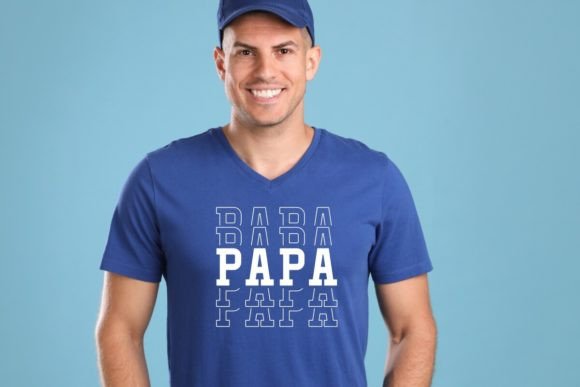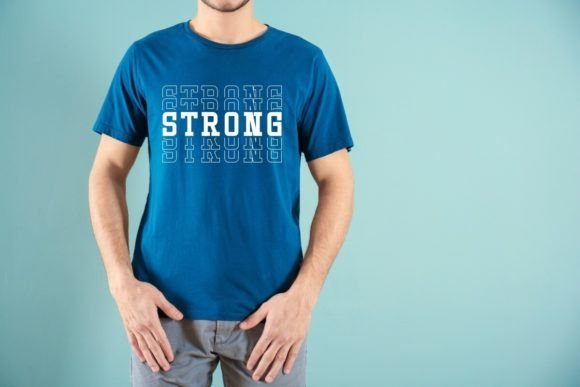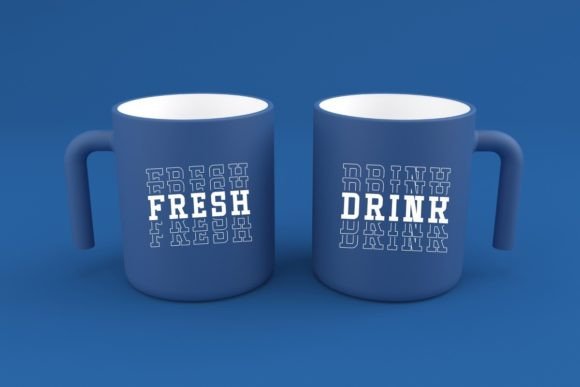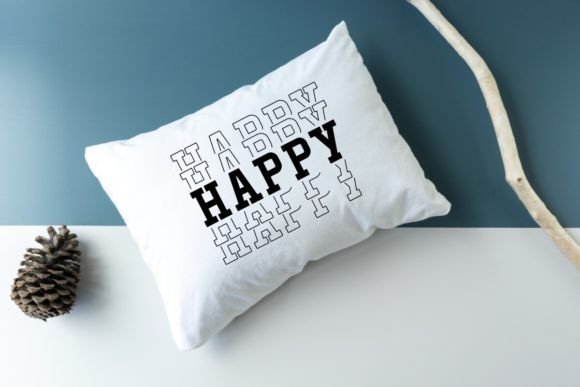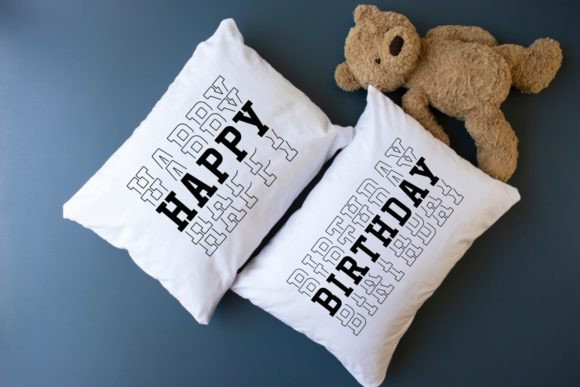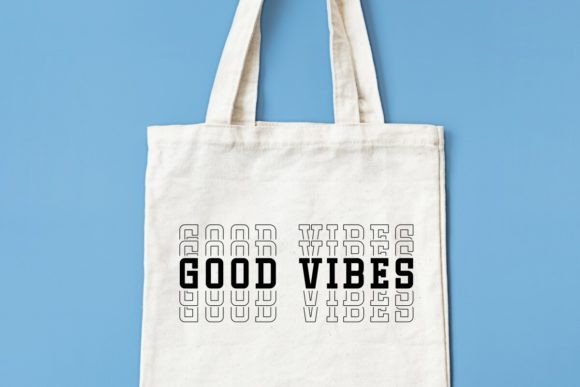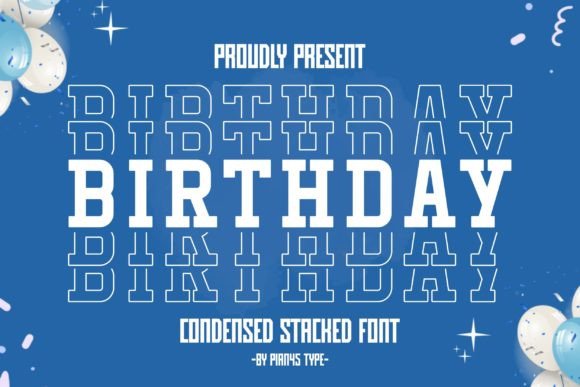
Introducing Birthday Stacked Font: Elevate Your Designs with Elegance
Are you on the lookout for a font that can add a touch of sophistication and charm to your designs? Look no further than the Birthday Stacked Font. This elegant and captivating condensed stacked slab serif font is perfect for designers and crafters who want to create stunning decorative projects. In this article, we’ll dive into the features and benefits of the Birthday Stacked Font and explore how it can elevate your designs.
What is Birthday Stacked Font?
Birthday Stacked Font is a unique and stylish font that combines the classic slab serif style with a modern stacked approach. The result is a refined and elegant font that exudes sophistication and charm. Its condensed design makes it perfect for use in a variety of applications, from decorative projects to backgrounds, and even merchandise such as t-shirts, mugs, tote bags, and pillows.
Key Features of Birthday Stacked Font
- Elegant and Captivating Design: The Birthday Stacked Font boasts a refined and stylish appearance that is sure to capture the attention of your audience.
- Condensed Stacked Slab Serif: The font’s condensed design and stacked slab serif style make it perfect for use in a variety of applications.
- Sophisticated and Charming: The font’s elegant design adds a touch of sophistication and charm to any project.
- Perfect for Decorative Projects: The Birthday Stacked Font is ideal for use in decorative projects, backgrounds, and merchandise.
Benefits of Using Birthday Stacked Font
So, why should you choose the Birthday Stacked Font for your next project? Here are just a few benefits of using this amazing font:
- Stand Out from the Crowd: The Birthday Stacked Font’s unique design ensures that your project will stand out from the crowd and grab the attention of your audience.
- Versatility: The font’s condensed design makes it perfect for use in a variety of applications, from small icons to large-scale designs.
- Easy to Read: Despite its condensed design, the Birthday Stacked Font remains easy to read, making it perfect for use in body text and headings.
- Customizable: The font is highly customizable, allowing you to adjust the size, color, and style to suit your project’s needs.
Use Cases for Birthday Stacked Font
The Birthday Stacked Font is perfect for a wide range of applications, including:
- Decorative Projects: Use the font to create stunning decorative projects, such as posters, flyers, and brochures.
- Merchandise: The font is perfect for use on merchandise, such as t-shirts, mugs, tote bags, and pillows.
- Backgrounds: Use the font to create beautiful backgrounds for your website, social media, or marketing materials.
- Signage: The font’s bold and elegant design makes it perfect for use in signage, such as store signs, billboards, and banners.
Tips for Using Birthday Stacked Font
Here are a few tips for getting the most out of the Birthday Stacked Font:
- Experiment with Different Sizes: The font’s condensed design makes it perfect for use in a variety of sizes, from small icons to large-scale designs.
- Play with Color: The font’s elegant design looks great in a variety of colors, so don’t be afraid to experiment and find the perfect hue for your project.
- Use it with Other Fonts: The Birthday Stacked Font pairs well with a variety of other fonts, so feel free to get creative and experiment with different combinations.
| Font Name | Birthday Stacked Font |
In conclusion, the Birthday Stacked Font is a versatile and elegant font that is perfect for designers and crafters who want to add a touch of sophistication and charm to their designs. With its refined and stylish appearance, condensed design, and highly customizable nature, this font is sure to become a staple in your design toolkit. So why wait? Download the Birthday Stacked Font today and start elevating your designs to new heights!